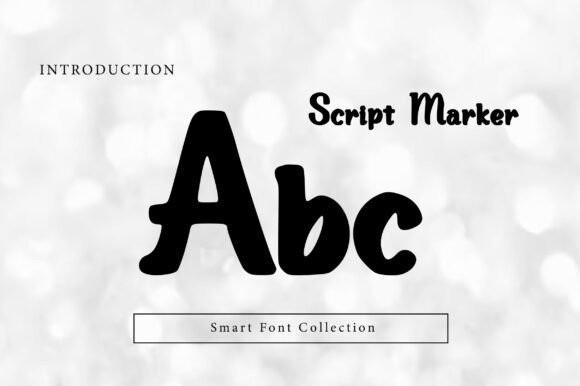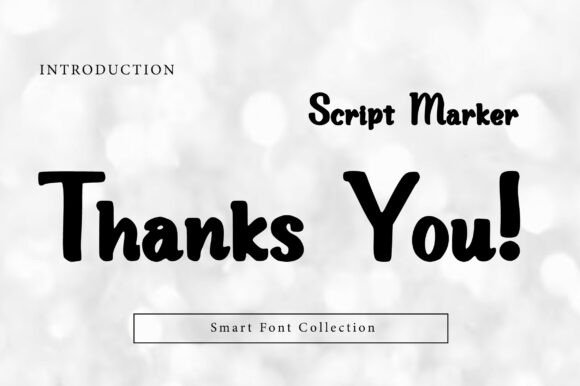
Introduction to Script Marker Font
Have you ever found yourself doodling in the margins of a notebook, experimenting with lettering styles, and imagining what it would be like to have the perfect font for your next creative project? For many designers, this is a familiar and exciting moment – the spark that sets the wheels turning and ideas flowing. Today, we’re excited to introduce you to a game-changing design resource that will elevate your work and make your designs stand out: the Script Marker Font.
This smooth, expressive handwritten marker script font is more than just a pretty face – it’s a versatile and high-quality tool that’s perfect for logos, branding, quotes, posters, social media graphics, packaging, invitations, and modern headline designs. With its flowing strokes and casual, friendly rhythm, Script Marker Font feels personal, energetic, and easy to read, while maintaining a handcrafted charm that’s hard to find in digital fonts.
Key Features of Script Marker Font
- High-quality design resource ideal for creative projects, offering a unique and stylish aesthetic.
- Unique script marker style, combining elements of handwritten and marker fonts for a distinctive look.
Honest Review: Script Marker Font
I recently stumbled upon the Script Marker Font, and I’m excited to share my thoughts on this design resource. As a designer, I’m always on the lookout for high-quality fonts that can elevate my creative projects.
- ✨ The font has a unique and elegant style that’s perfect for adding a touch of sophistication to your designs.
- ⚠️ The font is a bit limited in terms of character sets, which may not be suitable for extensive writing projects.
- ⚠️ Some users may find the font’s style a bit too ornate, which can be overwhelming in certain contexts.
Overall, I’m impressed with the Script Marker Font’s potential. While it’s not perfect, its unique style and high quality make it a valuable addition to any designer’s toolkit. If you’re looking for a creative way to add some flair to your projects, I’d definitely recommend giving it a try.
Script Marker Font
Tips for Getting the Most Out of Script Marker Font
Experiment with different font sizes and colors to create visual interest. Pair the Script Marker Font with other fonts to create a unique and eye-catching design. Use it for titles, headings, and quotes to add a personal touch to your designs.
The Script Marker Font is ideal for various creative projects, including invitations, social media graphics, and blog posts. It’s also great for adding a personal touch to presentations, reports, and other business materials.
Alternatives to Script Marker Font
Great Vibes is a beautiful, handwritten script font perfect for creative projects that require a high-quality design resource. It’s ideal for use in titles, headings, and other prominent text elements where a touch of elegance is needed. Great Vibes is a great alternative to Script Marker Font when you want to add a more refined and sophisticated feel to your design.
Comparison to Script Marker Font: Great Vibes has a more delicate and intricate design, making it suitable for projects that require a softer, more subtle look. Script Marker Font, on the other hand, has a bolder and more dramatic feel.
Alex Brush is a high-quality, script font designed for use in creative projects that require a touch of sophistication and elegance. It’s perfect for titles, headings, and other prominent text elements where a beautiful, handwritten font is needed. Alex Brush is a great alternative to Script Marker Font when you want to add a more refined and luxurious feel to your design.